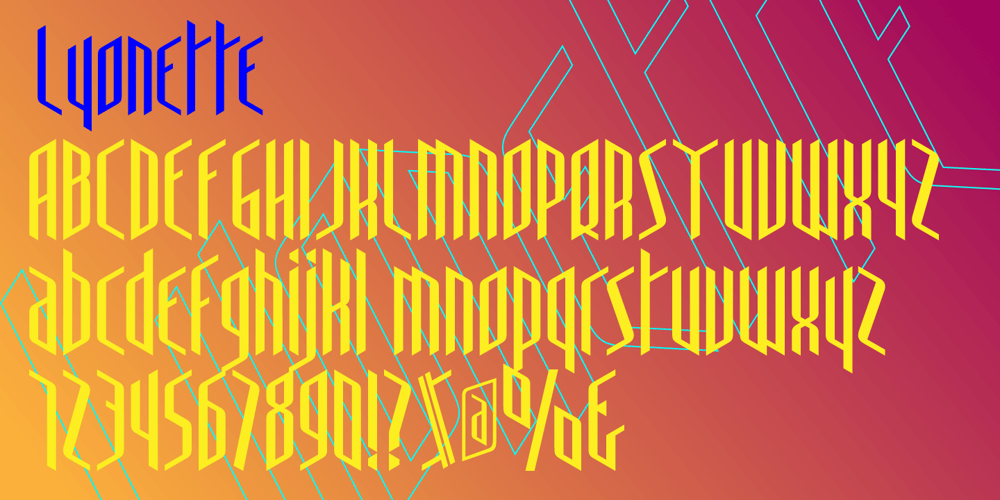
Lyonette NB Font Family was designed by George E. Thompson and published by No Bodoni. Lyonette NB contains 1 styles and family package options. These four typefaces, Berlinette NB, Lyonette NB, Marseillette NB and Parisette NB, were designed from the same basic shape, a geometric form that avoids strict horizontals and uses more offbeat triangular shapes. Lyonette is a fanciful type, gentle and precocious. It seems aloof at times but isn�t really. The frivolity and quirkiness of the narrow width is offset by the fey, finger-like horizontals, vaguely reminiscent of strange encounters and dark closets. It�s great for fashion advertising with literary pretensions. Or maybe a kinder, gentler sci-fi movie.